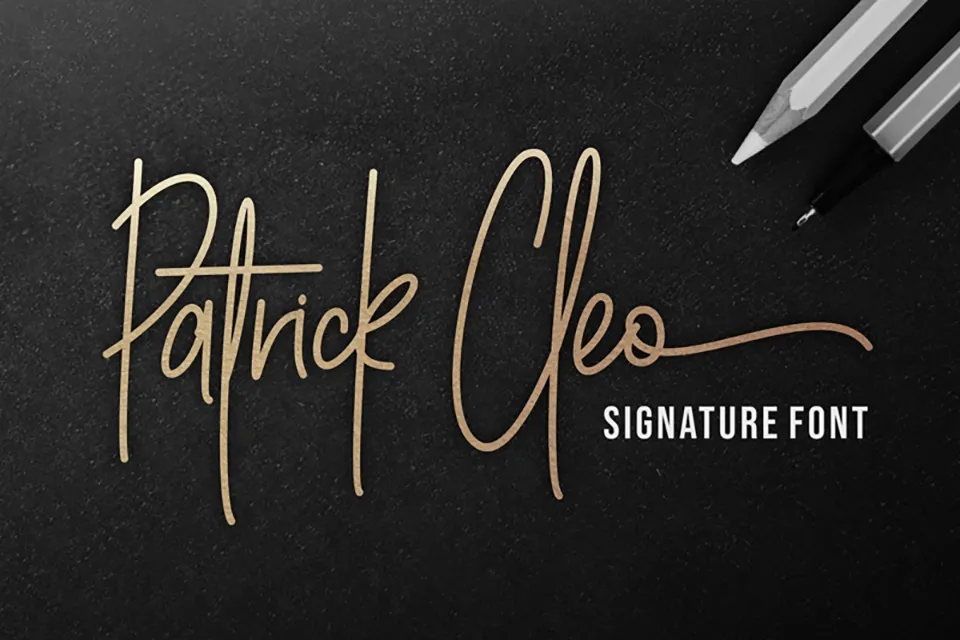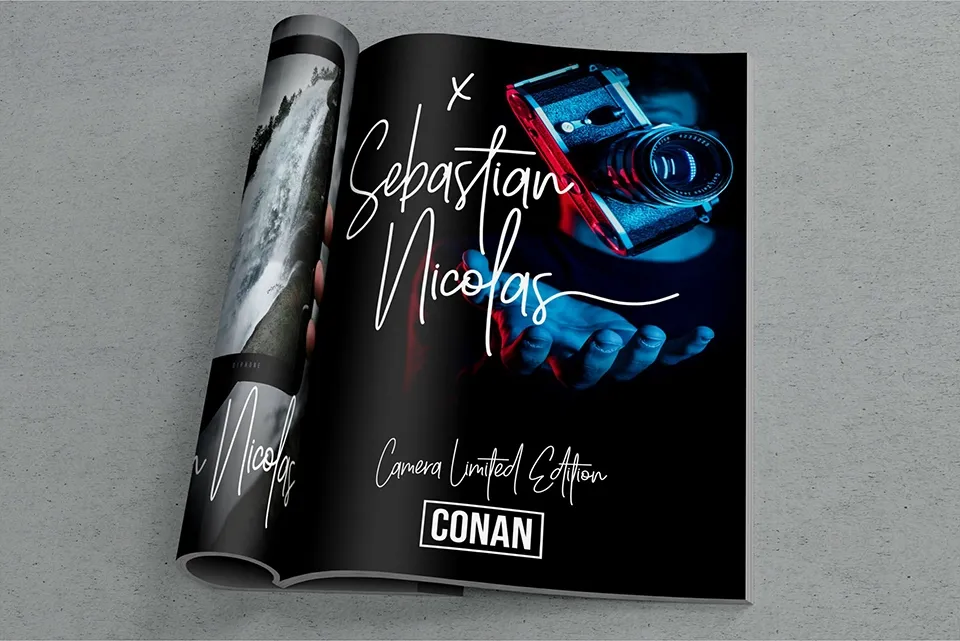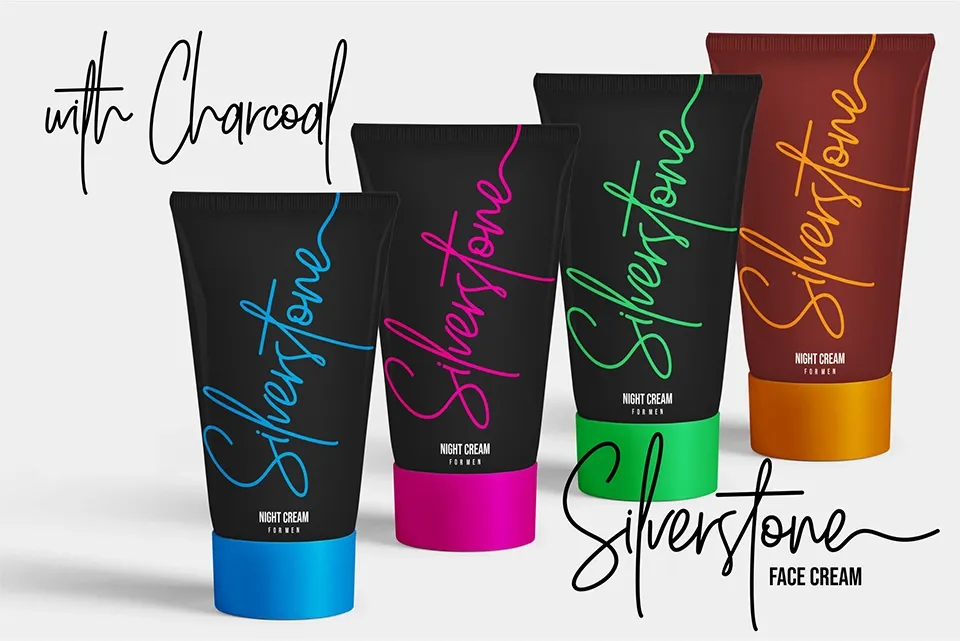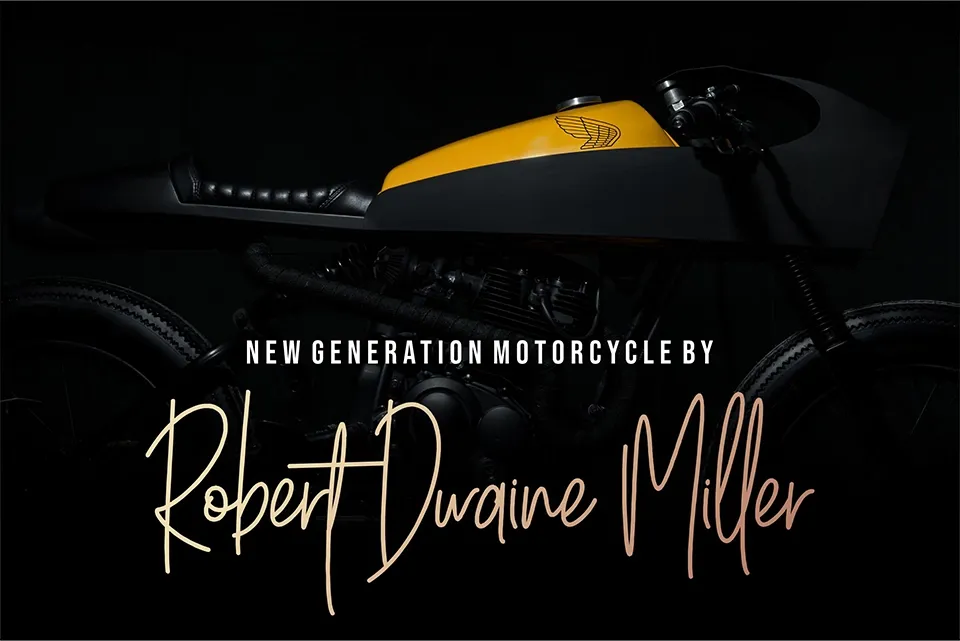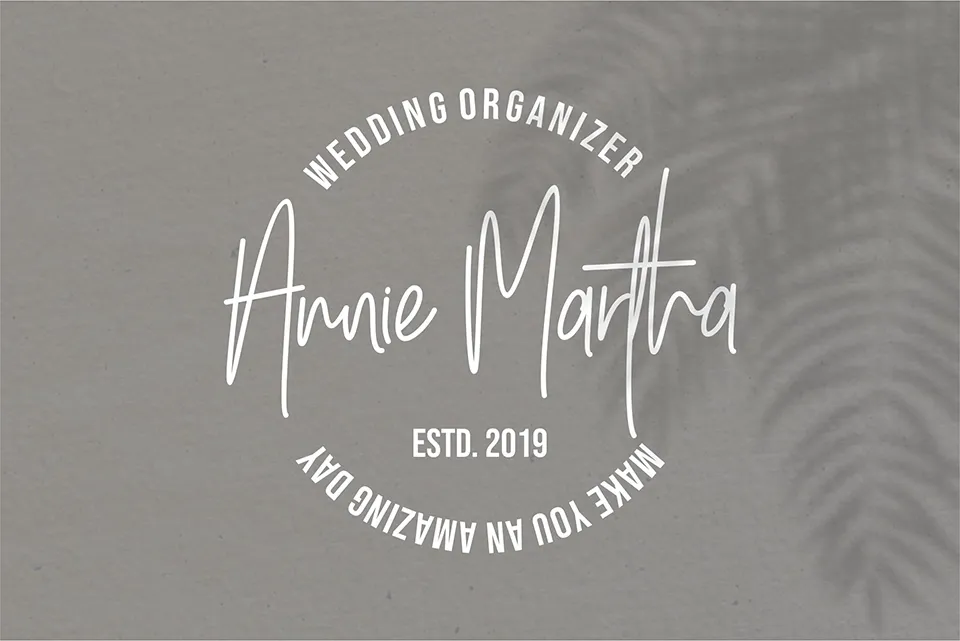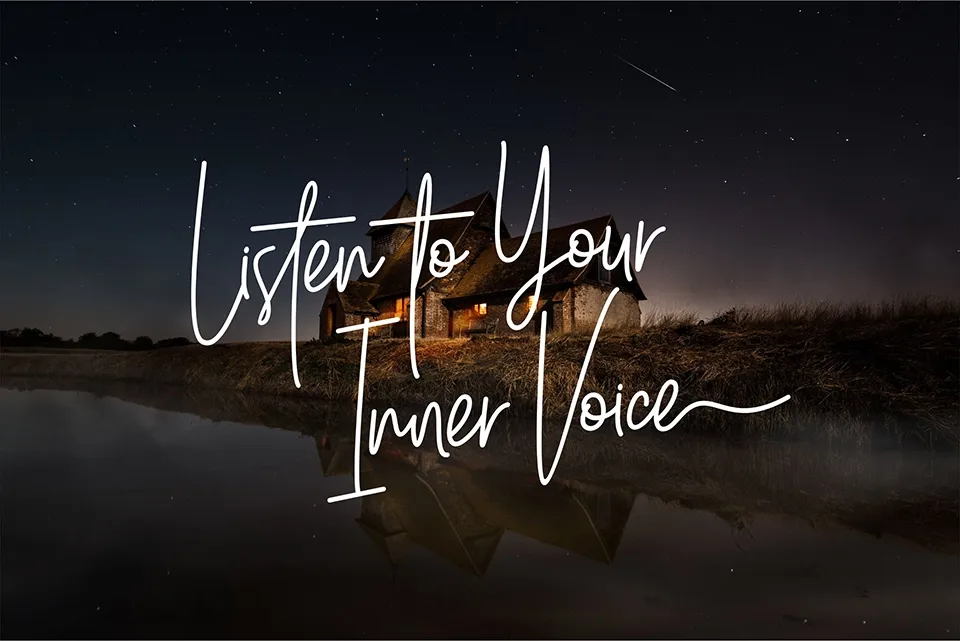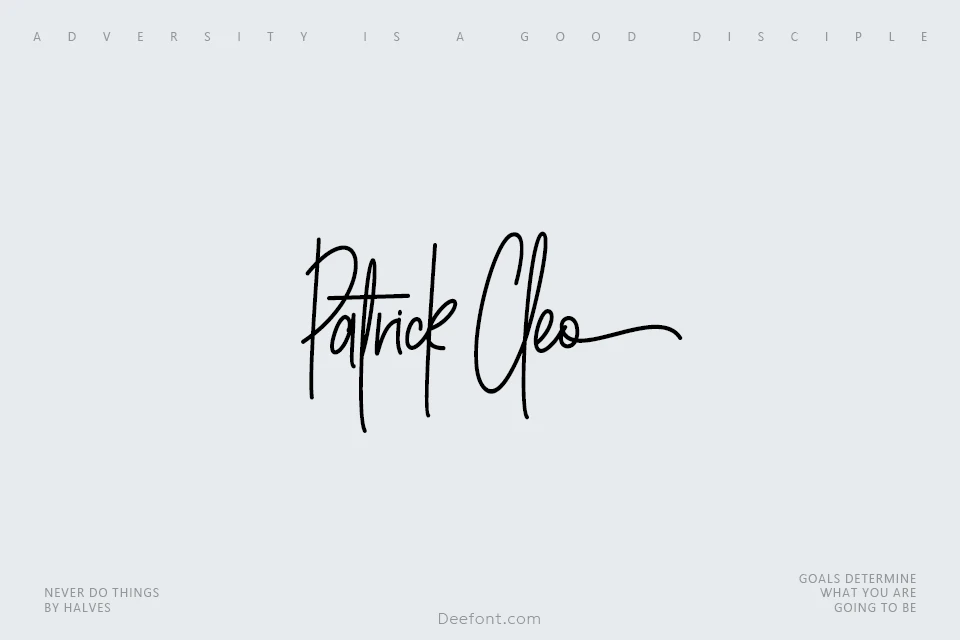
Patrick Cleo Font
Patrick Cleo Font is a stylish and elegant signature typeface designed to add a personal and sophisticated touch to your creative projects. Featuring smooth, flowing strokes and carefully crafted letterforms, this font exudes charm and professionalism. Perfect for branding, logos, wedding invitations, social media graphics, and stationery, Patrick Cleo brings a modern handwritten aesthetic to any text. Its refined details and natural feel make it ideal for conveying individuality and creativity. Whether used for bold statements or subtle accents, Patrick Cleo Font ensures your designs stand out with grace and originality, making it a versatile choice for designers and creators.